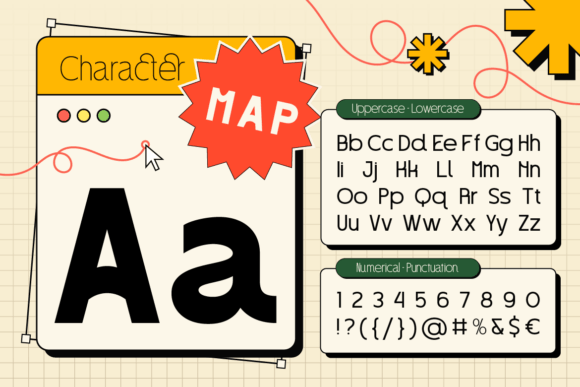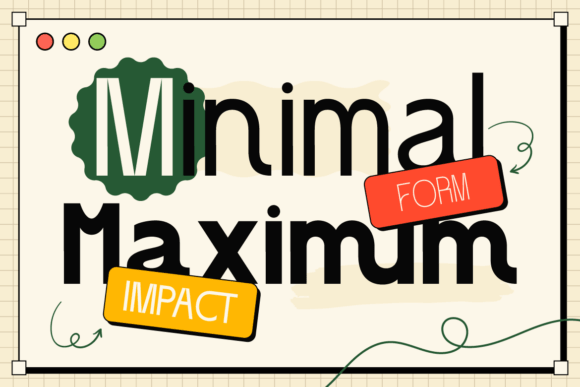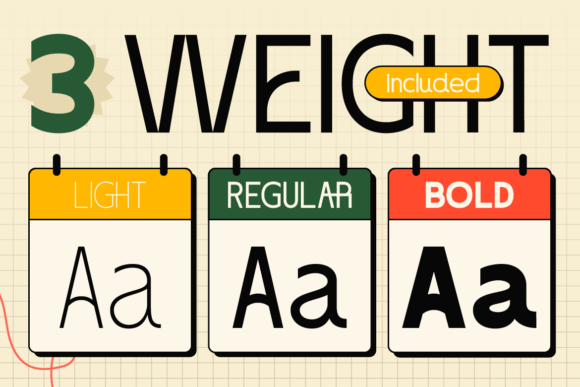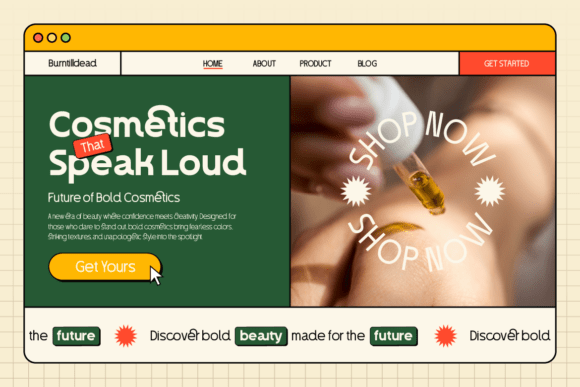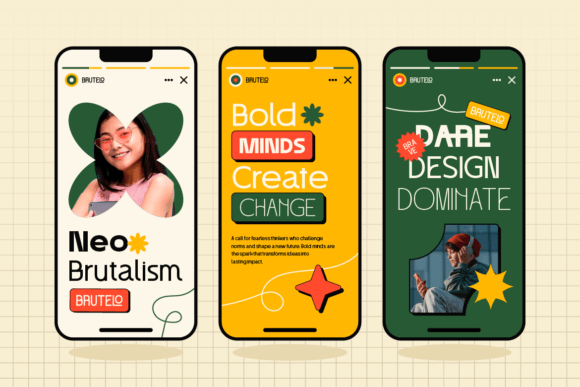
The Perfect Font for the Bold and the Brave
Have you ever been brainstorming a new project, staring at a blank page, and suddenly, a spark of creativity hits? The ideas start flowing, and you can’t wait to bring them to life. That’s exactly what happens when you work with the right font – and that’s where the Brutelo Font comes in.
This bold and playful take on Neo Brutalism is designed to grab attention without even trying. With its strong geometry, quirky shapes, and confident energy, the Brutelo Font is the perfect companion for designers who want to stand out from the crowd. Whether you’re creating a poster, logo, or social media post, this versatile font will help you express your unique style and personality.
Brutelo Font Key Features
- Font Family: Brutelo Font is a sans-serif font family, ideal for modern designs and digital applications.
- Character Count: The font family includes over 400 characters, including uppercase and lowercase letters, numbers, and punctuation marks.
- Unique Characteristics: Brutelo Font features a unique blend of geometric and organic elements, resulting in a modern and sophisticated aesthetic.
Brutelo Font Review
Overall, I have mixed feelings about the Brutelo font. While it has some nice features, it’s not without its limitations. Let’s dive in and see what works well and what doesn’t.
- The Brutelo font is incredibly versatile, suitable for a wide range of applications, from digital products to print materials.
- The font’s geometric shapes give it a modern, minimalist look that’s both sleek and sophisticated.
- The Brutelo font is highly customizable, allowing designers to adjust various parameters to achieve the perfect look.
- The font can appear somewhat cold and uninviting, especially when used in large blocks of text.
- The Brutelo font may not be the best choice for body text, as it can be difficult to read in certain sizes and contexts.
- The font’s geometric nature can make it challenging to create visually appealing italics and script styles.
The Brutelo font is a solid choice for designers who want a modern, versatile font with a lot of customization options. However, it may not be the best fit for every project, especially those requiring a more approachable or creative feel.
Use the Brutelo font for titles, headings, and emphasis to add a touch of elegance and sophistication to your designs.
Experiment with different font sizes and styles to create visual hierarchy and balance.
Pair the Brutelo font with other fonts to create a unique and eye-catching typography combination.
Alternatives to Brutelo Font
Pacifico is a beautiful, elegant script font that is perfect for creating a sophisticated and luxurious look. It’s ideal for use in branding, logos, and advertising materials where a touch of class is required.
Comparison to Brutelo Font: Pacifico has a more refined and polished appearance, while Brutelo Font has a more rugged and industrial feel.
Playfair Display is an elegant and luxurious script font that is perfect for creating a high-end and sophisticated look. It’s ideal for use in branding, logos, and advertising materials where a touch of luxury is required.
Comparison to Brutelo Font: Playfair Display has a more refined and sophisticated appearance, while Brutelo Font has a more rugged and industrial feel.
Great Vibes is a beautiful and elegant script font that is perfect for creating a fun and playful look. It’s ideal for use in branding, logos, and advertising materials where a touch of whimsy is required.
Comparison to Brutelo Font: Great Vibes has a more relaxed and casual appearance, while Brutelo Font has a more rugged and industrial feel.
Q: Can I customize Brutelo to fit my specific design needs?
Yes, Brutelo is designed to be highly customizable. You can adjust the font’s weight, width, and style using the font’s built-in features, such as OpenType’s stylistic sets and variations. Additionally, you can use font editing software to further customize the font to your liking.